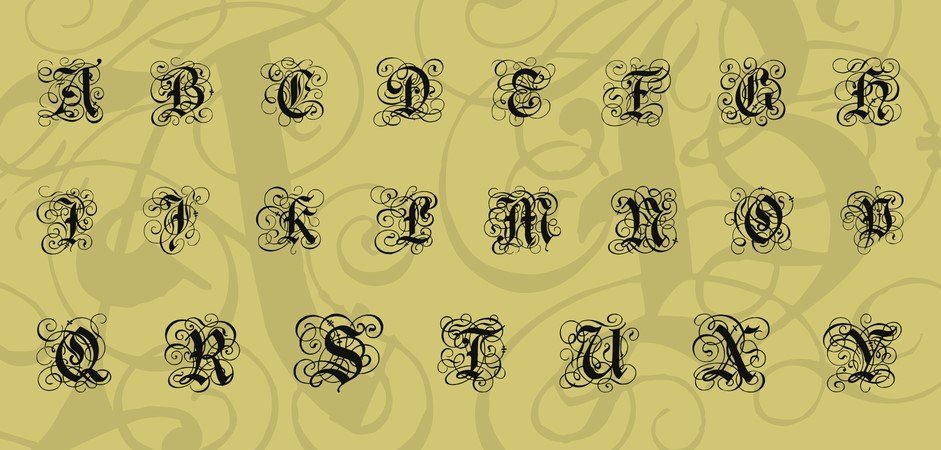
Gothic Flourish Font is a robust display and stunning typeface with distinctive, impressive ligatures and texture. Lime font foundry was responsible for designing and offering this exceptional typeface at no cost.
It contains an elegant and unique look that has professional work. It is best for pairing usie with wreath font all types of commercial designs. You can download and use it for free without doing lots of effort.
The typeface has consistency in all of its letters, having proper baselines, spaces, heights, and widths. It contains brilliant legendary designing layouts that will do your work easy.
The Gothic Flourish Font is the famous and amazing typeface that was a product of the combined efforts by Lime.